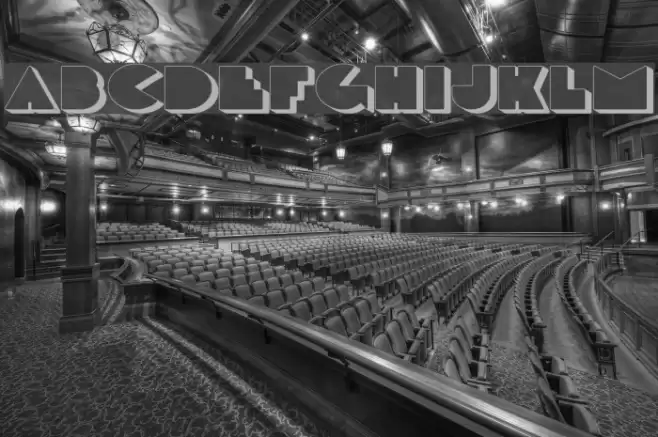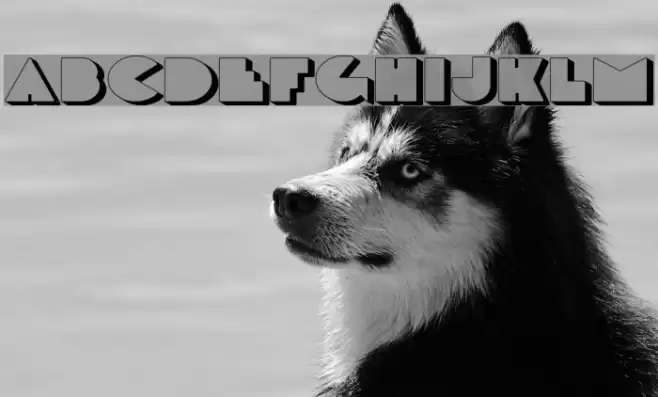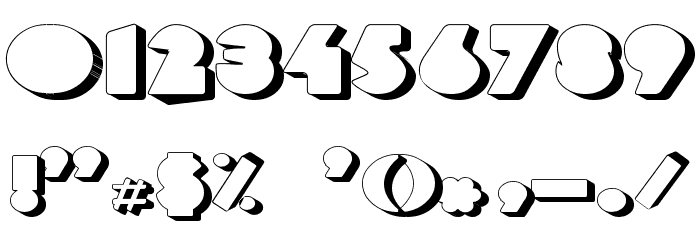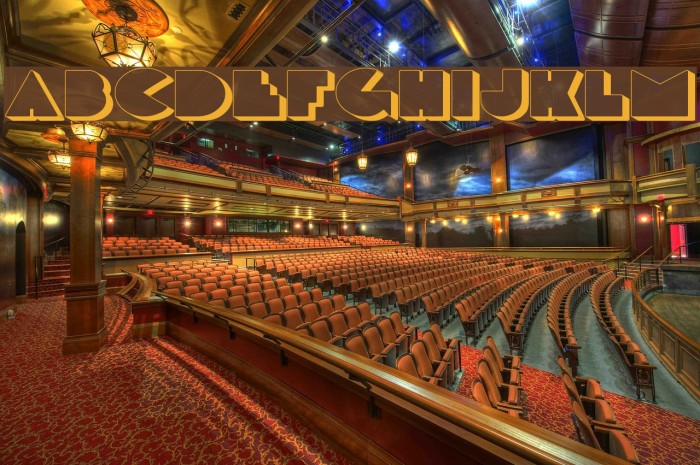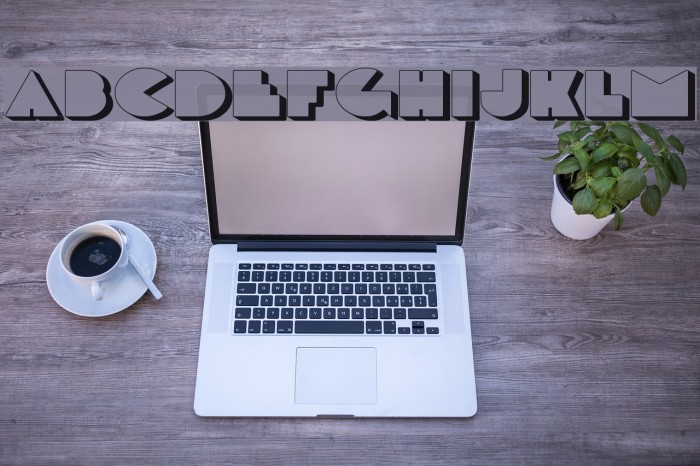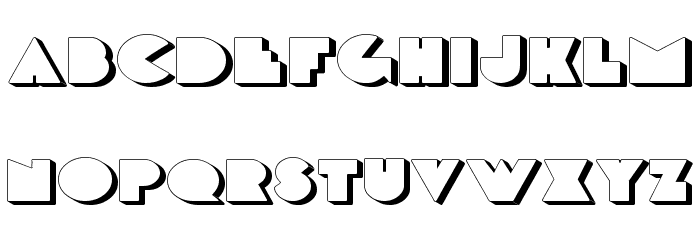
DeLarge Shadow Font
DeLarge Shadow Description
This font features a bold, geometric design with a distinct shadow effect that gives it a three-dimensional appearance. The characters are constructed with sharp angles and clean lines, creating a modern and impactful look. The uppercase and lowercase letters maintain a consistent style, with the shadow adding depth and visual interest. Numbers and special characters are designed to match the boldness and geometric nature of the alphabet, ensuring a cohesive appearance across all glyphs. The font's unique shadow effect makes it stand out, making it ideal for attention-grabbing designs.
A bold, geometric font with a distinctive shadow effect for a 3D look from Uncategorized fonts.